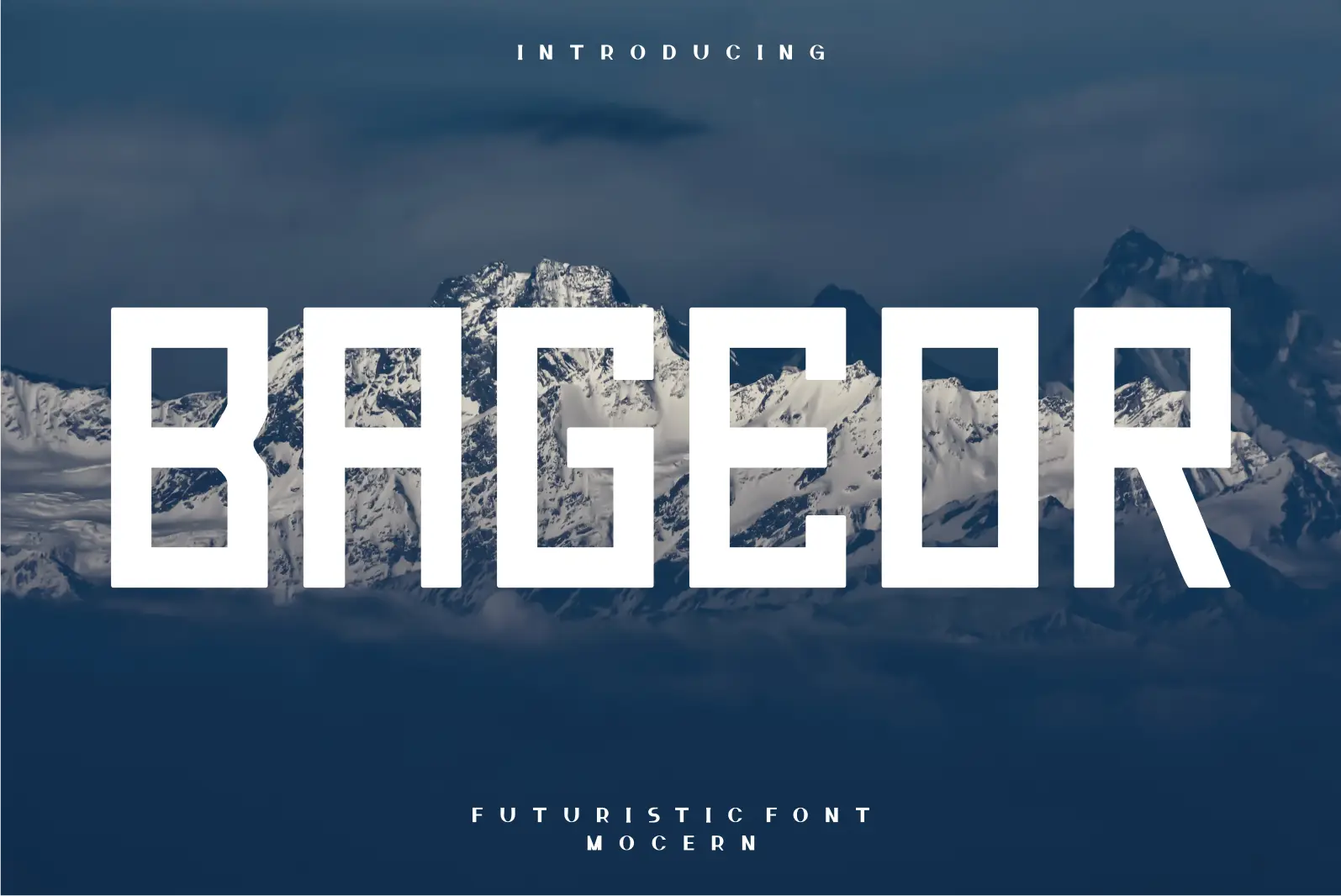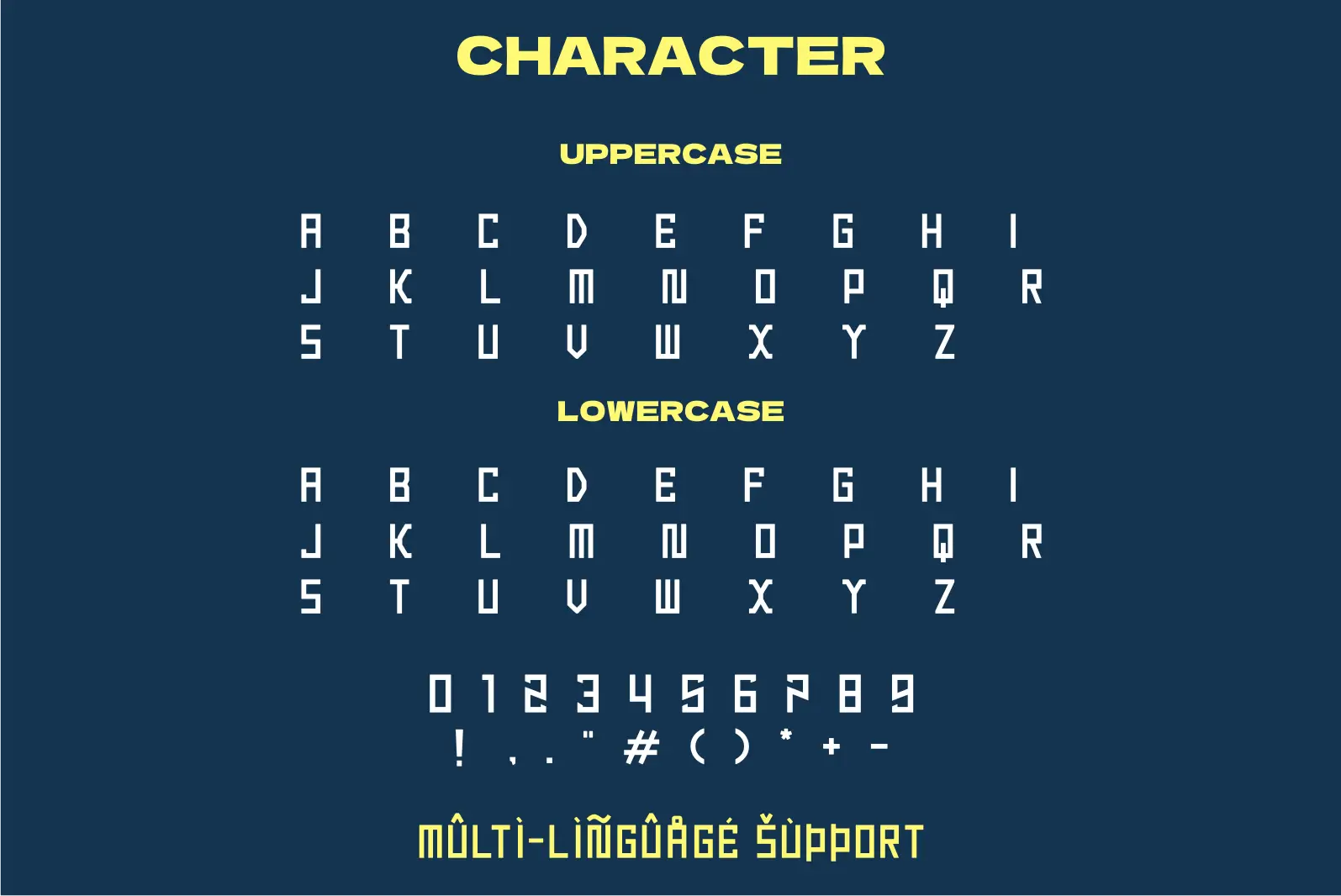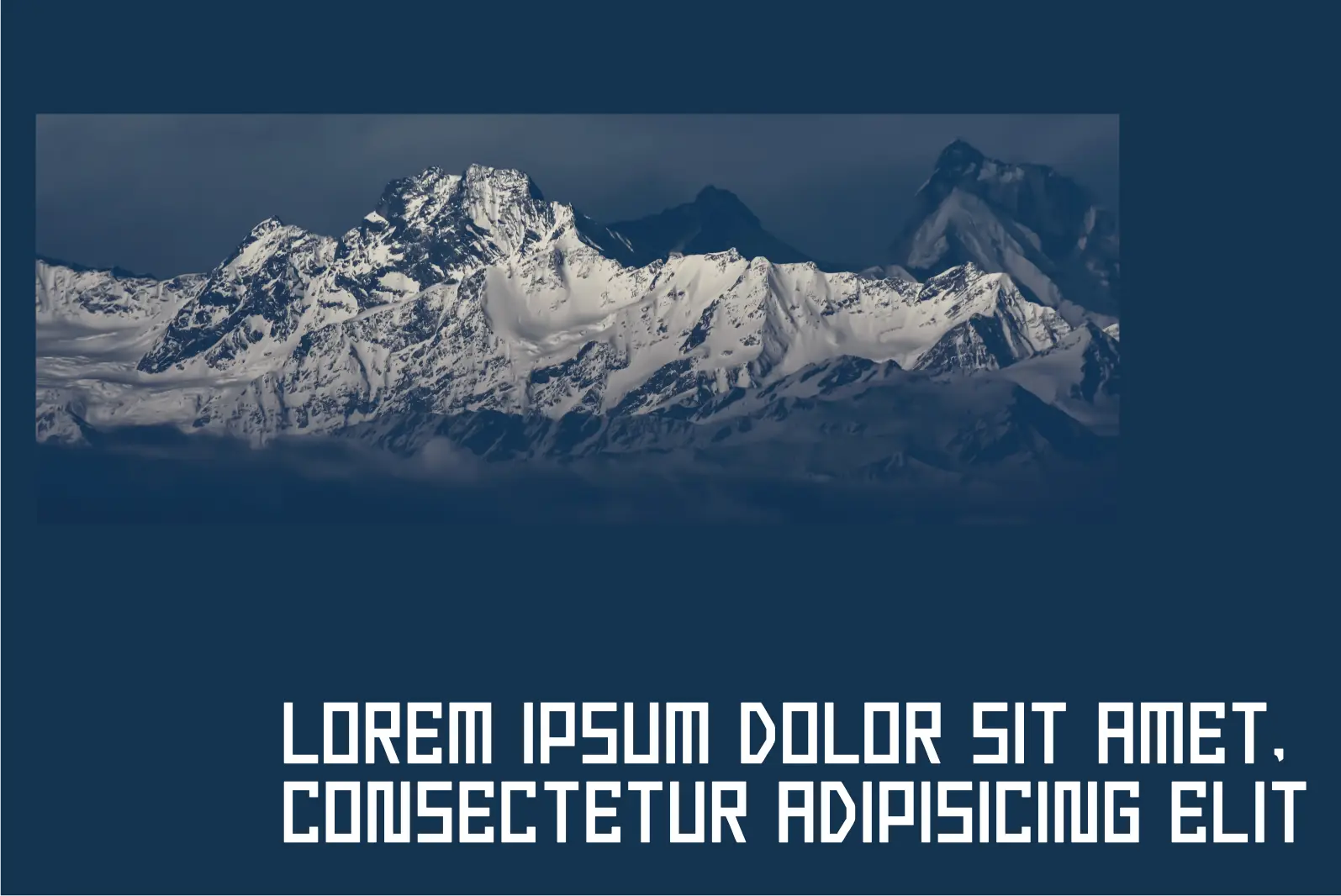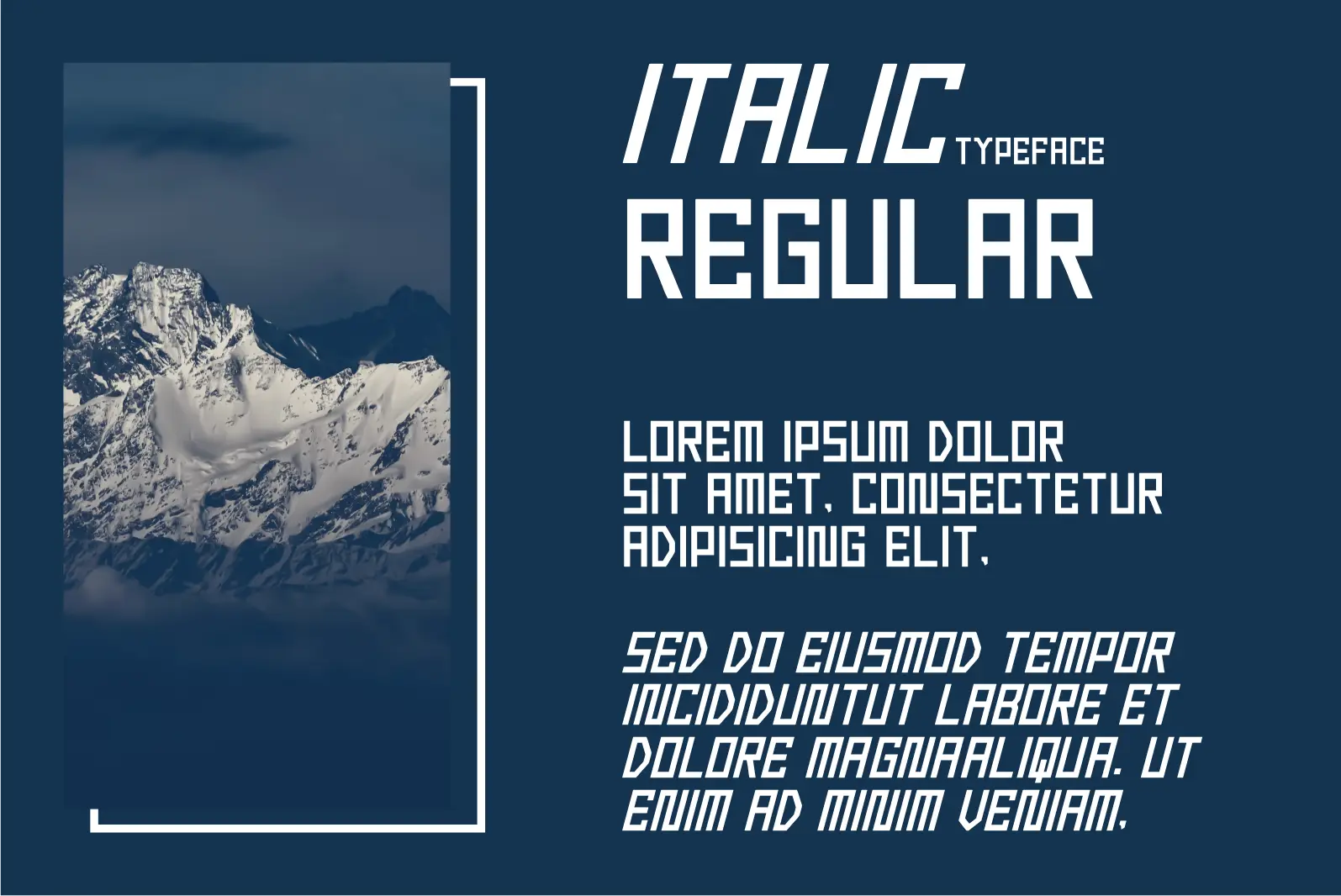
Bageor Display Font
The Bageor Display Font is a striking typeface designed to make a statement. With its unique character shapes and bold design, this font is perfect for a variety of creative projects.
• Distinctive display style
• Supports a wide range of languages
This font is ideal for branding, logos, posters, and web design, providing a bold touch to any visual project.